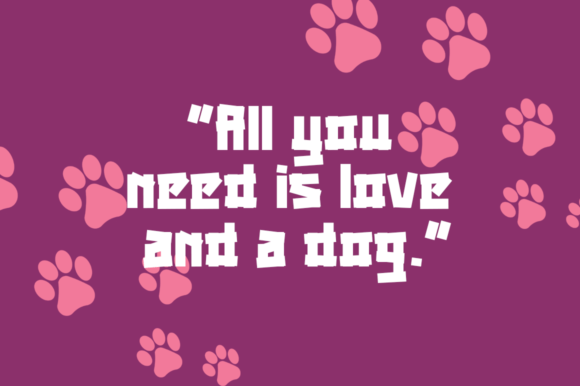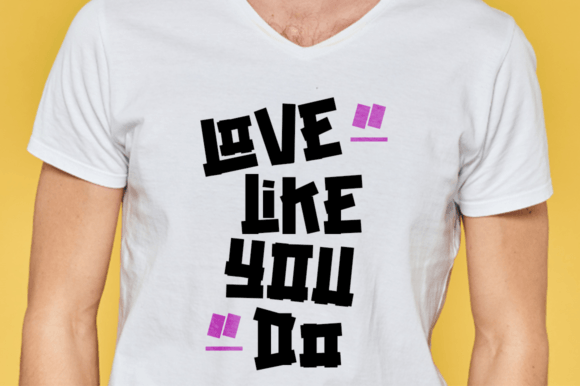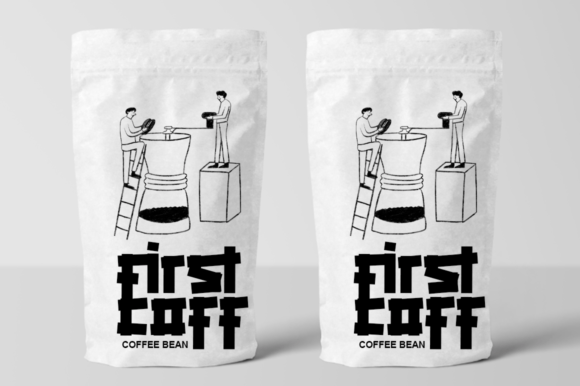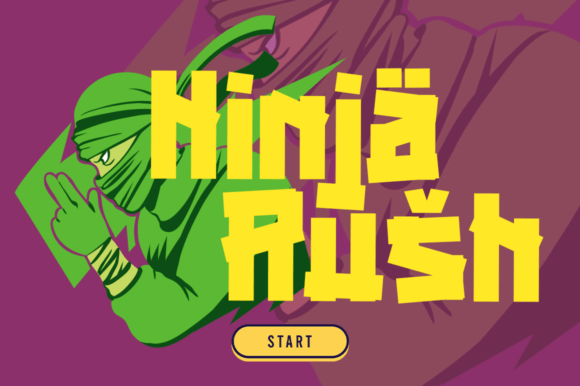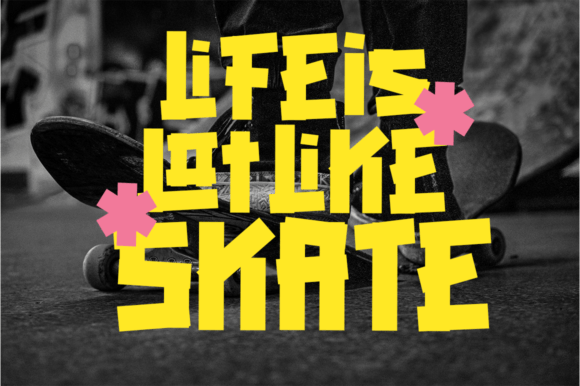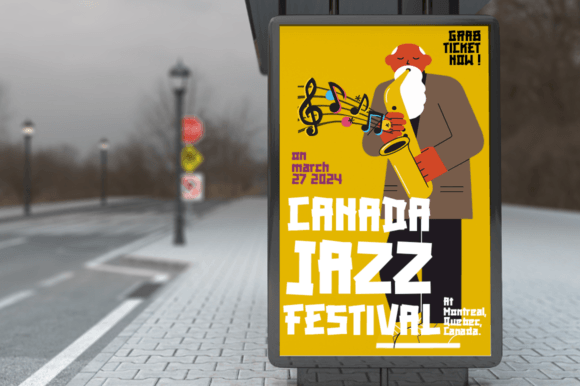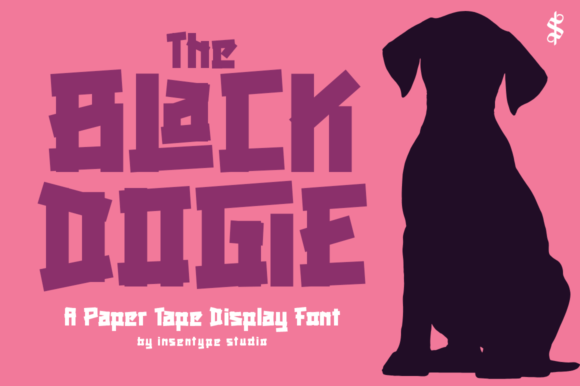
Unleash Your Creativity with Black Dogie Font: The Ultimate Display Font for Artistic Projects
Are you a designer, crafter, or artist looking for a unique and versatile font to elevate your creative projects? Look no further than Black Dogie Font, a stunning display font that is sure to make a lasting impression. Created organically with paper tape, Black Dogie is a one-of-a-kind font that is perfect for a wide range of applications, from packaging and greeting cards to book titles, posters, and typography projects.
The Story Behind Black Dogie Font
Black Dogie Font is a true labor of love, created with a personal touch that sets it apart from other fonts. The use of paper tape as a creative medium adds a tactile, handmade feel to the font, making it perfect for projects where a unique and artistic touch is desired. The font’s organic origins give it a distinctive character that is sure to capture the attention of your audience.
Endless Possibilities with Black Dogie Font
One of the best things about Black Dogie Font is its incredible versatility. Whether you’re working on a packaging design, a greeting card, or a poster, this font is sure to add a touch of elegance and sophistication. Its bold, eye-catching design makes it perfect for headlines, titles, and other display text, while its clear and legible design ensures that it remains easy to read, even at smaller sizes.
Black Dogie Font is a dream come true for designers and crafters who are looking for a unique and inspiring font to add to their toolkit. Whether you’re a seasoned professional or just starting out, this font is sure to spark your creativity and help you bring your ideas to life. With Black Dogie, you can:
- Create stunning packaging designs that stand out on store shelves
- Design beautiful greeting cards and invitations that make a lasting impression
- Develop eye-catching posters and flyers that grab attention
- Add a touch of elegance to your typography projects and artwork
Why Choose Black Dogie Font?
So why choose Black Dogie Font over other display fonts on the market? Here are just a few reasons why this font stands out:
- Unique and original design: Black Dogie Font is a one-of-a-kind font that is sure to set you apart from the crowd.
- Highly versatile: This font can be used for a wide range of applications, from packaging and posters to greeting cards and typography projects.
- Exceptional quality: This font is designed to deliver exceptional results, with clear and legible text that looks great at any size.
Whether you’re a designer, crafter, or artist, Black Dogie Font is the perfect choice for anyone looking to add a unique and artistic touch to their projects. So go ahead, get creative, and see what amazing things you can achieve with Black Dogie Font!